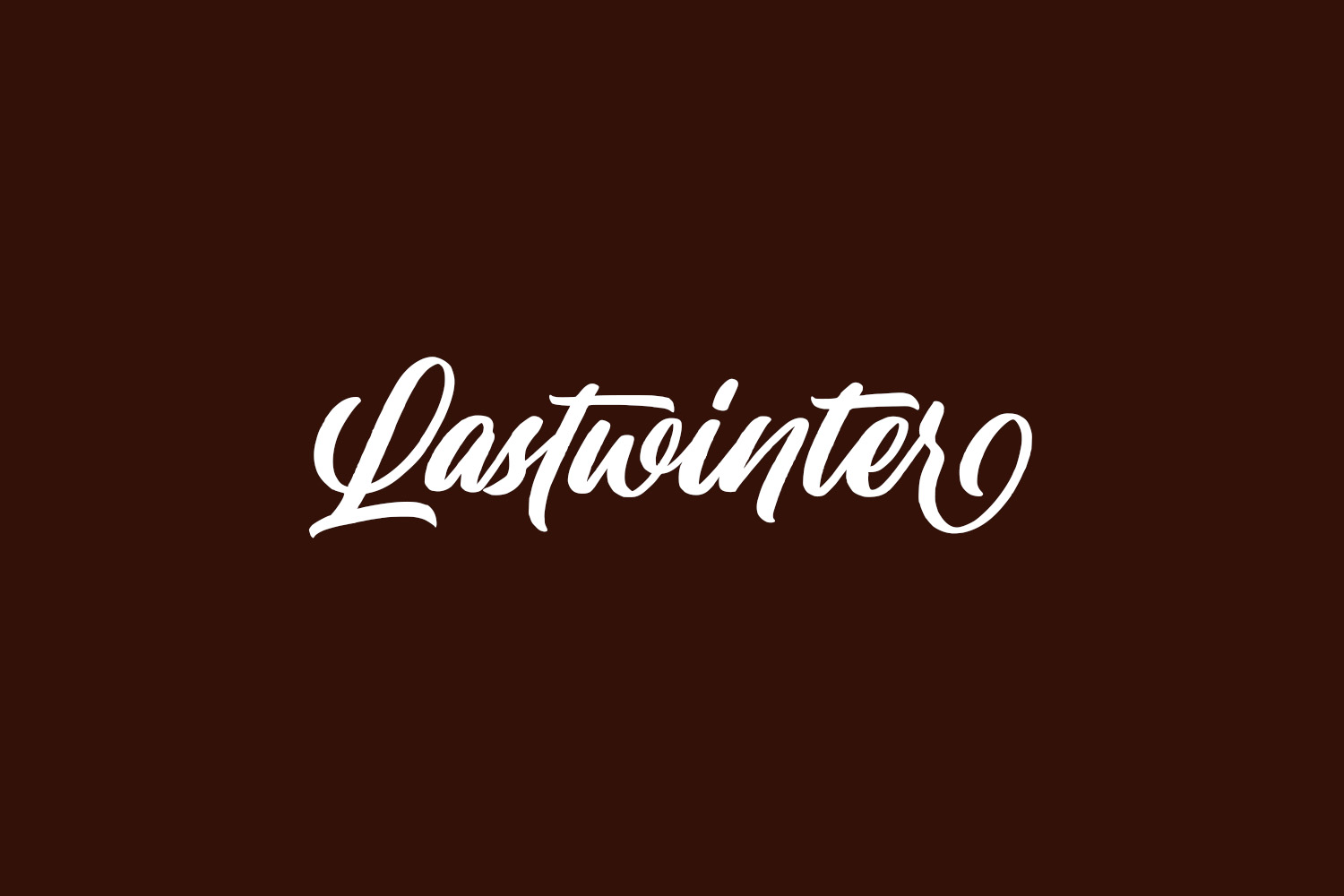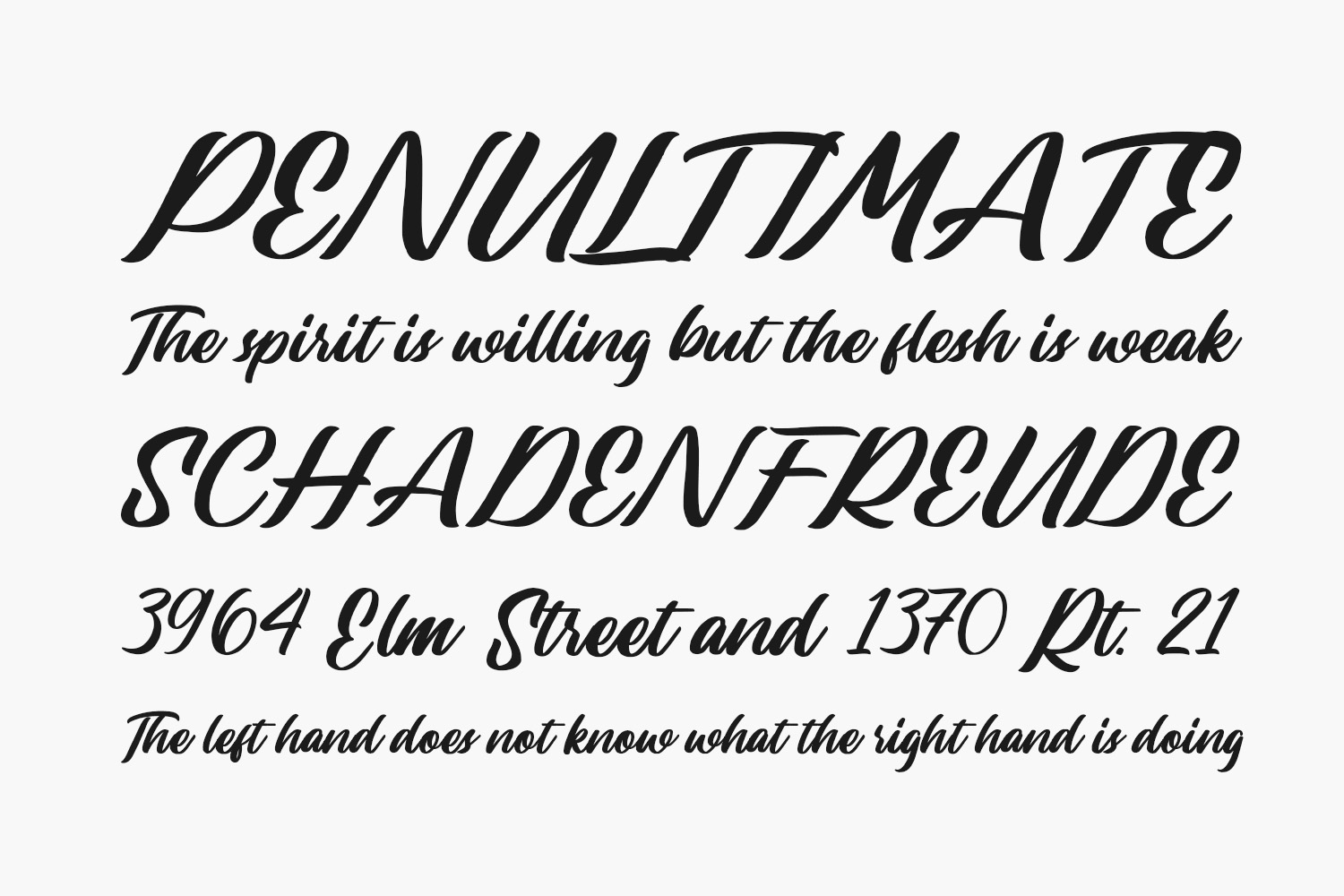
Lastwinter Free Font is a stunning handwritten font with a vintage feel. It will turn any design idea into a true standout. Lastwinter Free Font was designed by Garisman Studio and is free for personal use only. Please purchase the full version for commercial use.